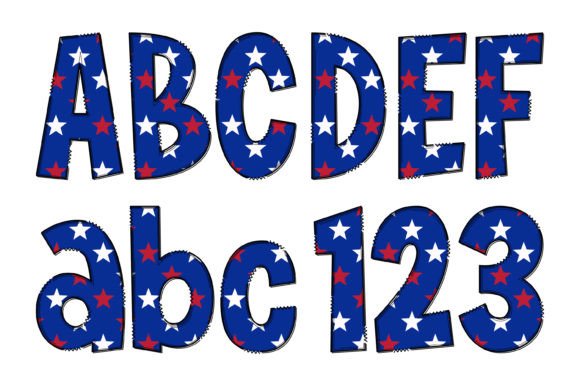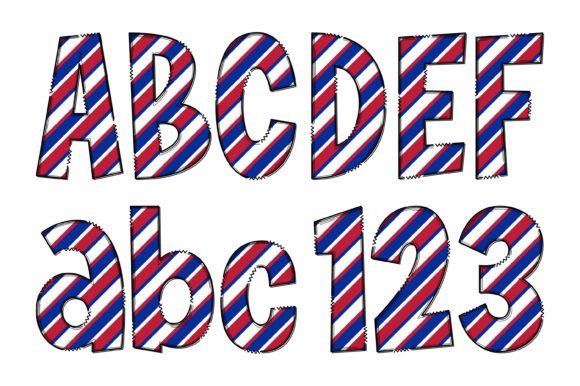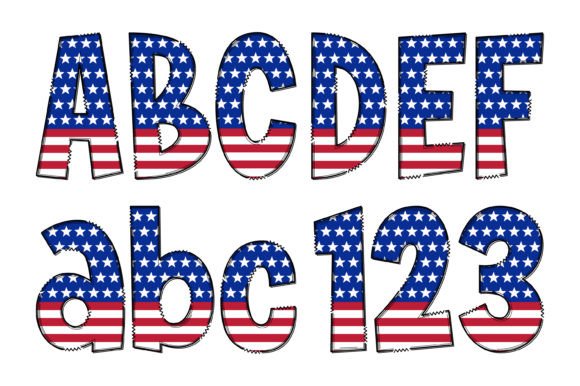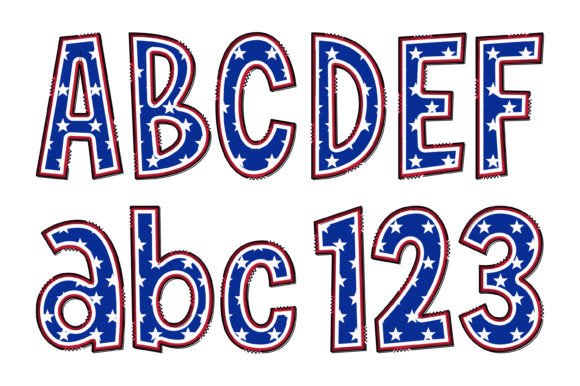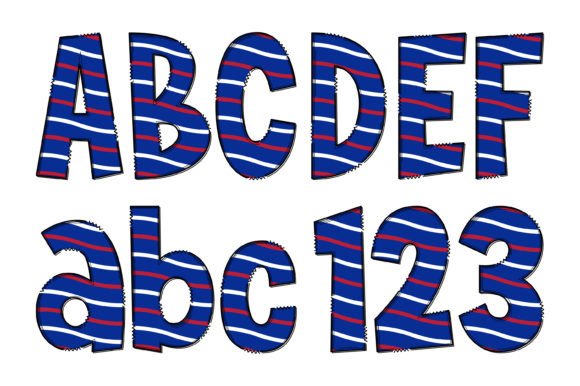
The Spirit of America in Every Letter
Imagine you’re brainstorming ideas for a 4th of July celebration, and suddenly, the perfect font pops into your mind. It’s vibrant, playful, and radiates the warmth of American culture. This is exactly the kind of creative moment that sparked the creation of the American Nations Collection Font, a delightful and charming font collection that brings the diverse traditions and cultures of the United States to life.
Perfect for celebratory occasions, multicultural events, or showcasing American pride, the American Nations Collection Font is a valuable addition to any designer’s toolkit. With its ability to capture the spirit of unity and diversity, this font adds a touch of fun and joy to your designs. Whether you’re working on a project that celebrates American heritage or simply want to add a pop of color to your next design, the American Nations Collection Font is sure to bring a smile to your face and a sense of pride to your work.
American Nations Collection Font Key Features
- Font Family: American Nations Collection is a unique font family consisting of 6 individual fonts: American Nations, American Nations Condensed, American Nations Expanded, American Nations Script, American Nations Script Condensed, and American Nations Script Expanded.
- Unique Characteristics: American Nations Collection features a distinctive, hand-drawn aesthetic with a mix of modern and classic elements, making it ideal for projects that require a unique and sophisticated look.
Review of American Nations Collection Font
As a designer, I’ve had the chance to work with the American Nations Collection Font, and I must say it’s been a mixed bag. ✨ Here are some things that work well:
- Unique design aesthetic: The font has a distinct, bold look that’s perfect for headlines and titles.
- Wide character set: The font includes a wide range of characters, including Cyrillic and Greek alphabets.
- High-quality rendering: The font renders well on various devices and resolutions, making it a great choice for digital projects.
- Limited legibility in small sizes: While the font looks great in large sizes, it can be difficult to read in smaller sizes.
- No italics or bold-italic styles: If you need to use italics or bold-italic text, you’ll need to find a different font.
- Not suitable for body text: Due to its bold design, the font is not ideal for large blocks of body text.
Overall, I think the American Nations Collection Font is a great choice for designers who need a bold, eye-catching font for headlines and titles. However, it may not be the best choice for body text or situations where legibility is a top priority.
The American Nations Collection Font is ideal for:
- Creating patriotic designs and graphics
- Developing historical or educational materials
- Designing branding and marketing materials for American businesses
For optimal results, pair the American Nations Collection Font with complementary colors and design elements that evoke a sense of American heritage and tradition.